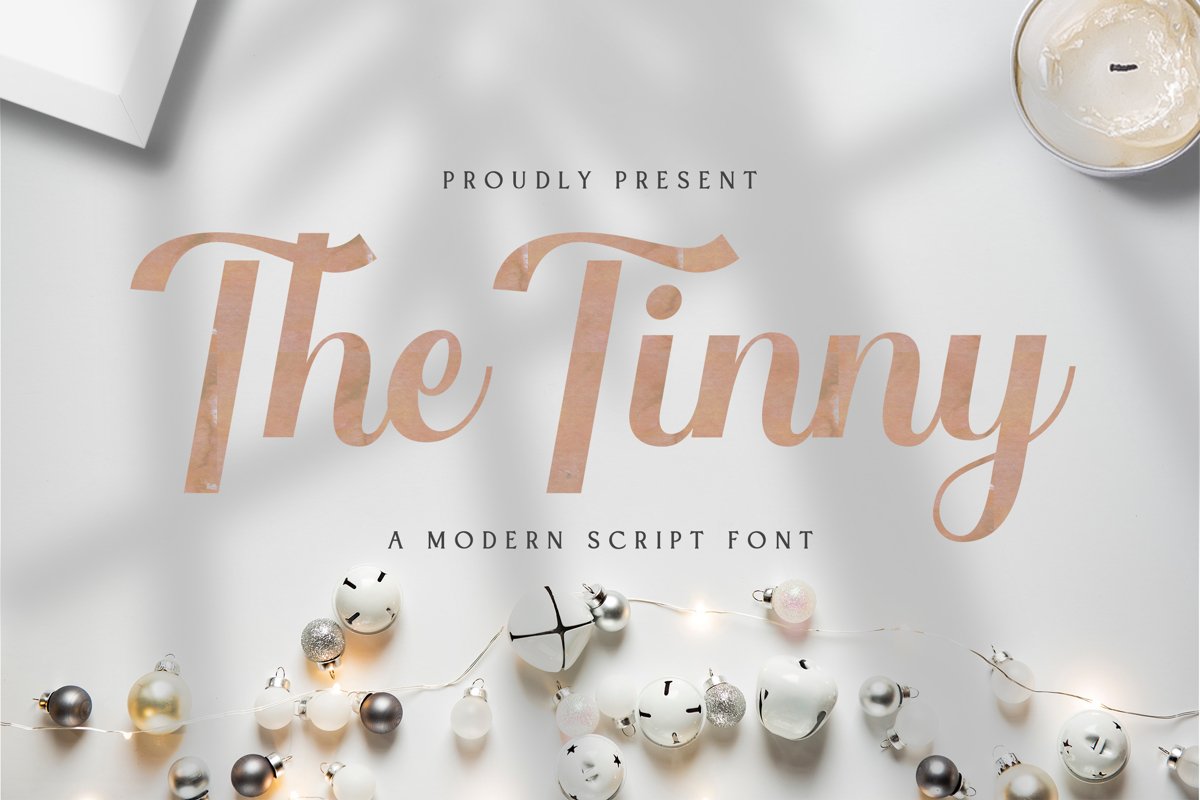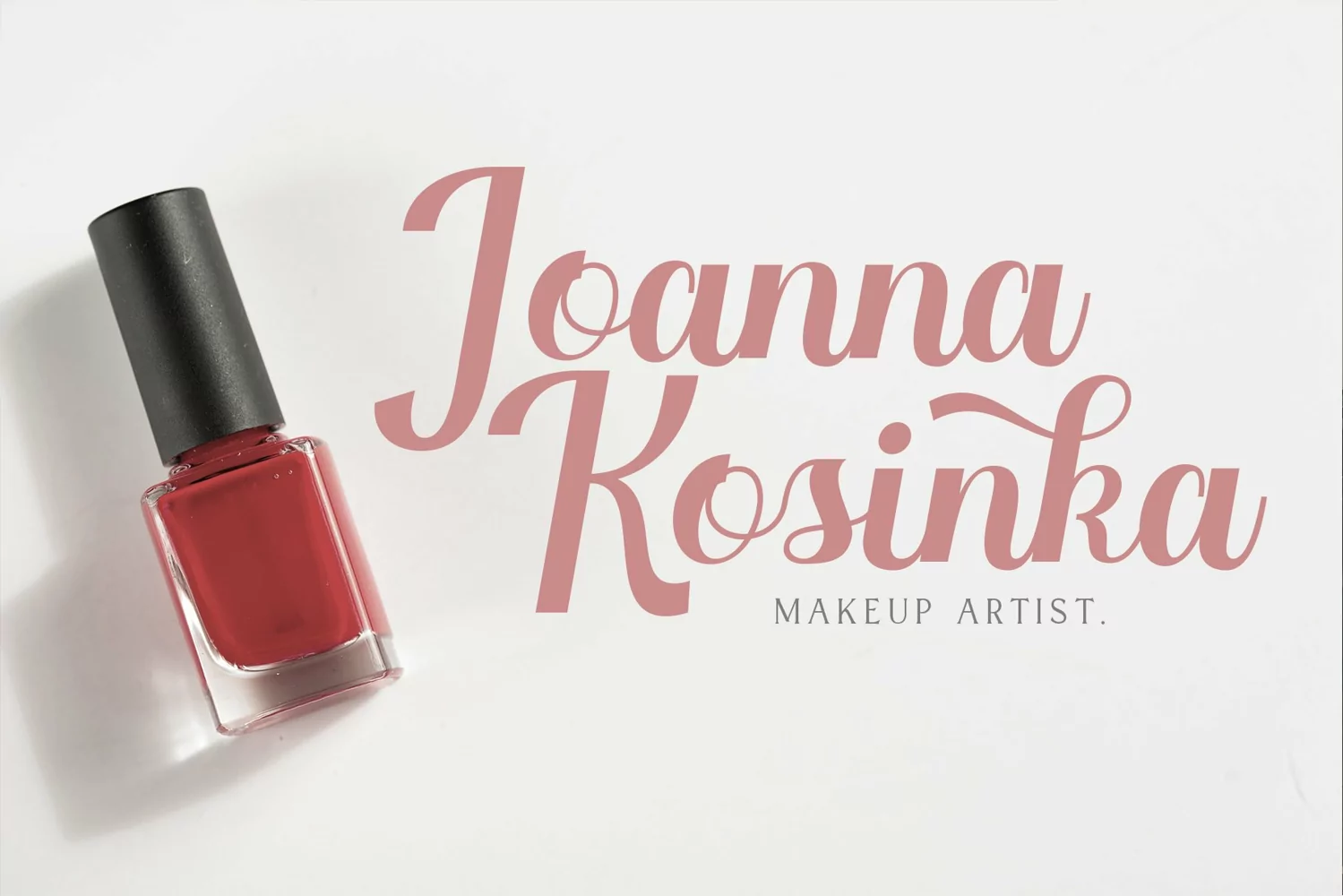
The Tinny is a Modern Script Typeface. Perfect for display, quotes, packaging, merchandise, business card, header, tittle, branding, logo, logotype, badges, crafting needs, wedding needs and many more.